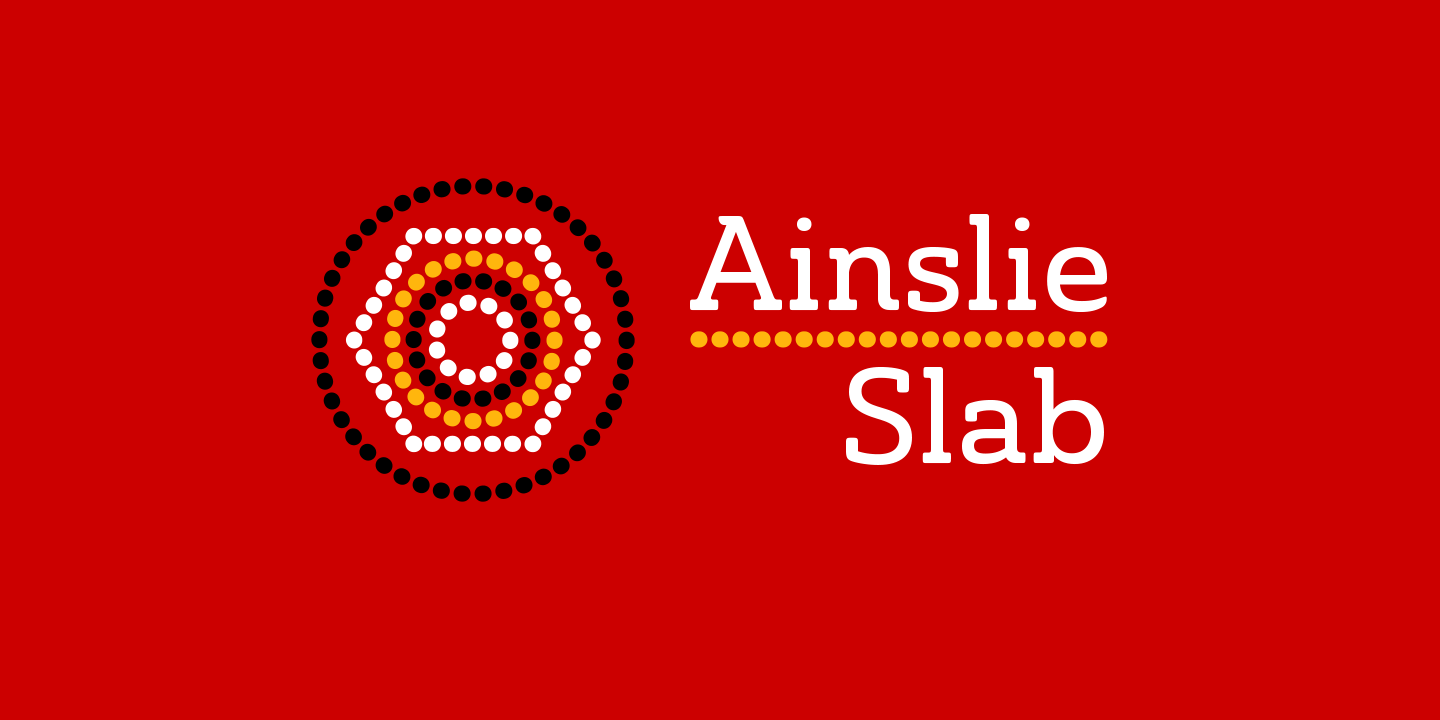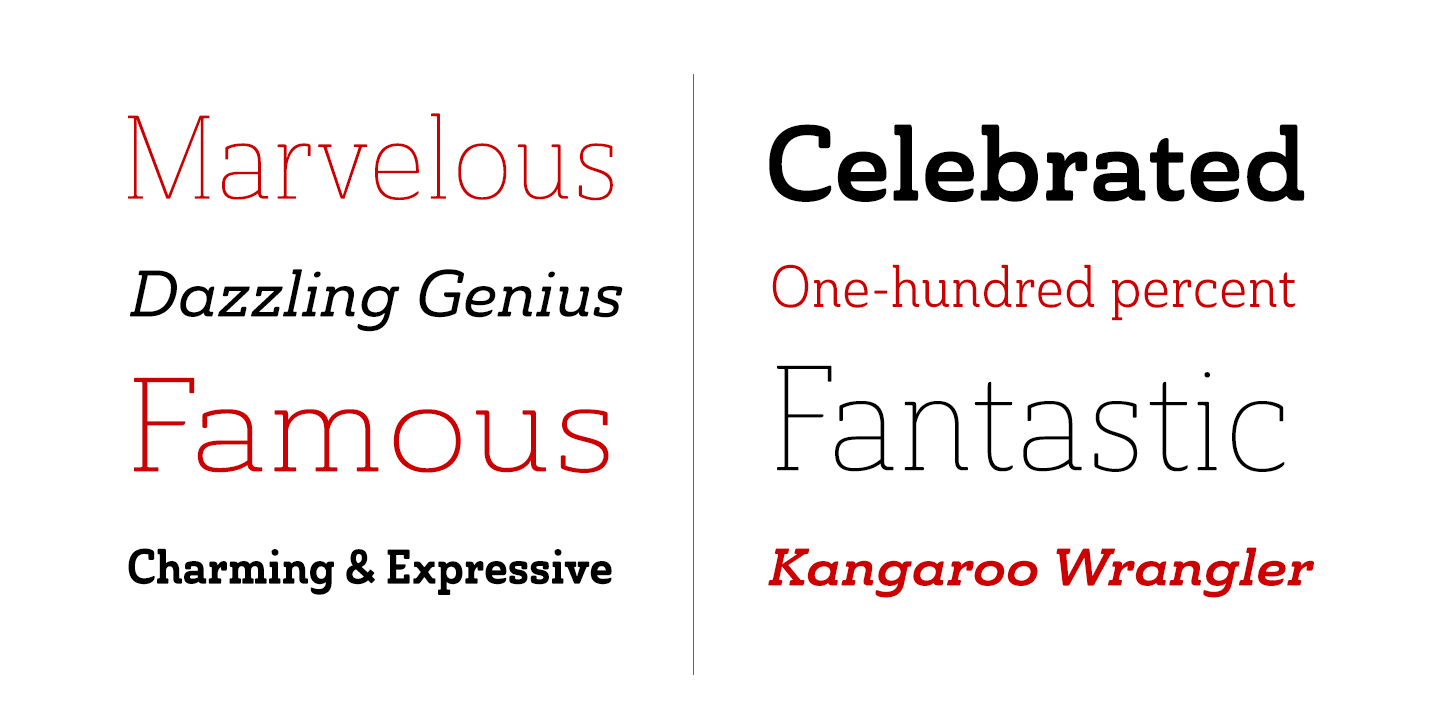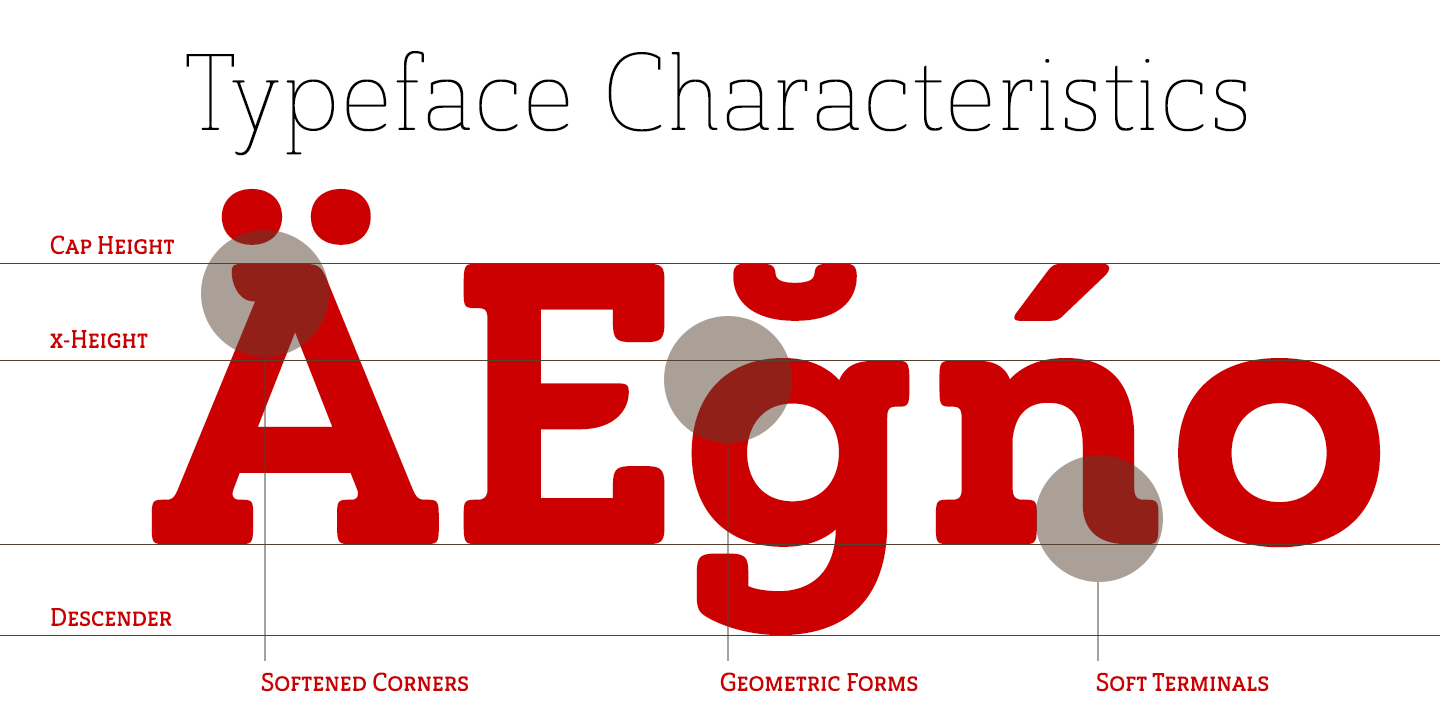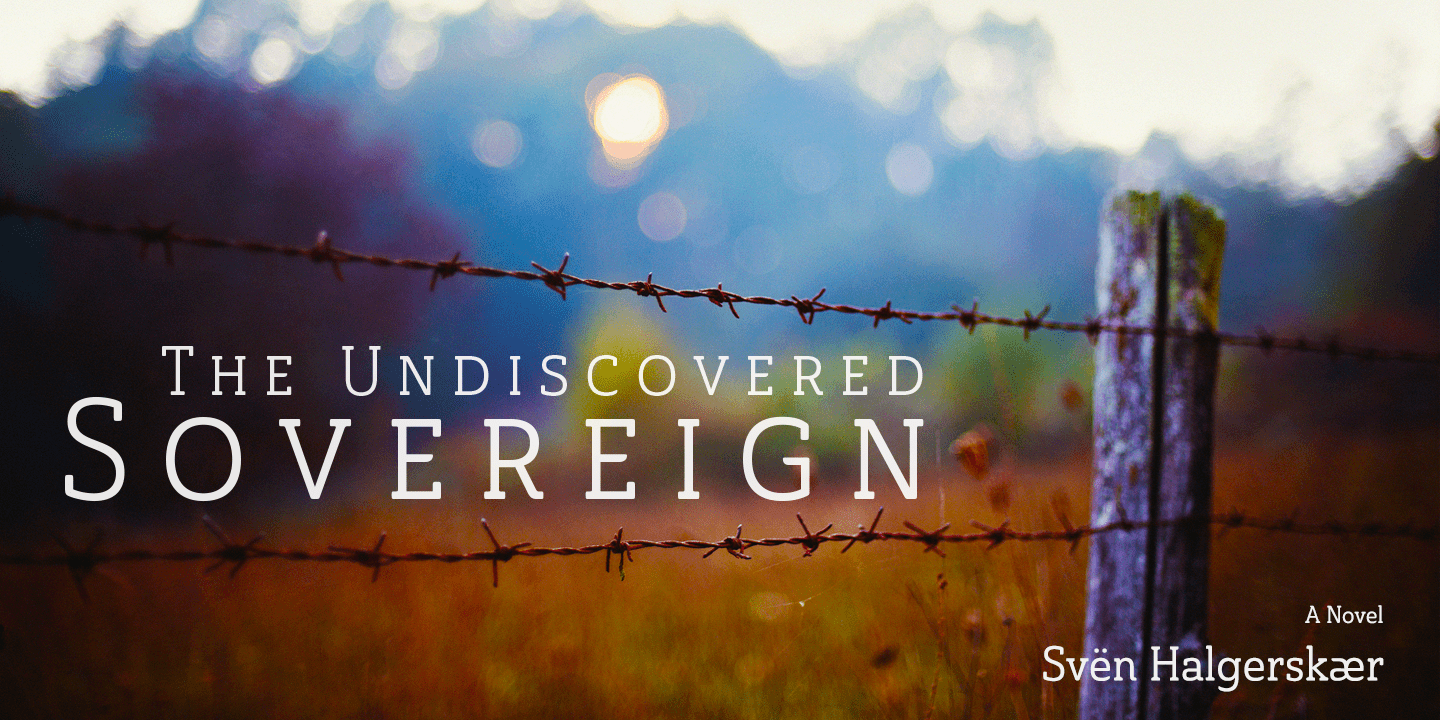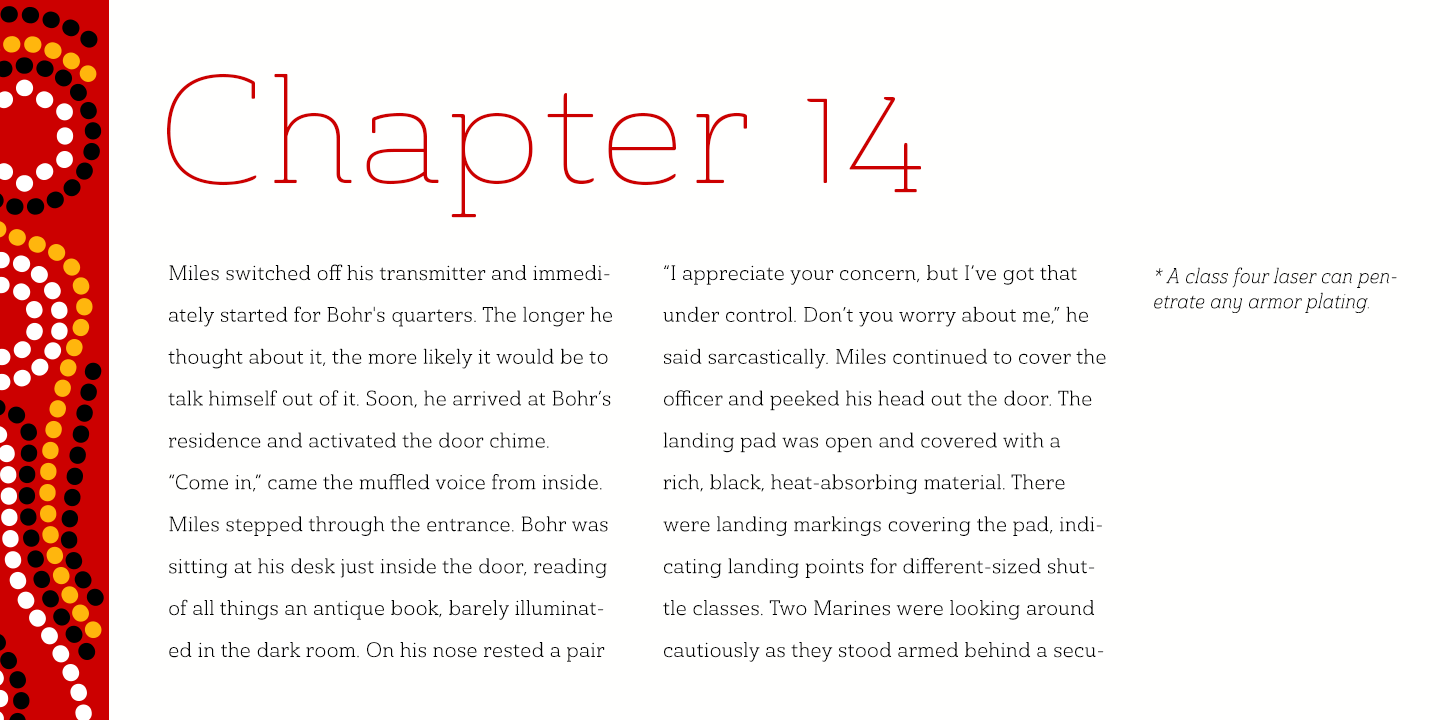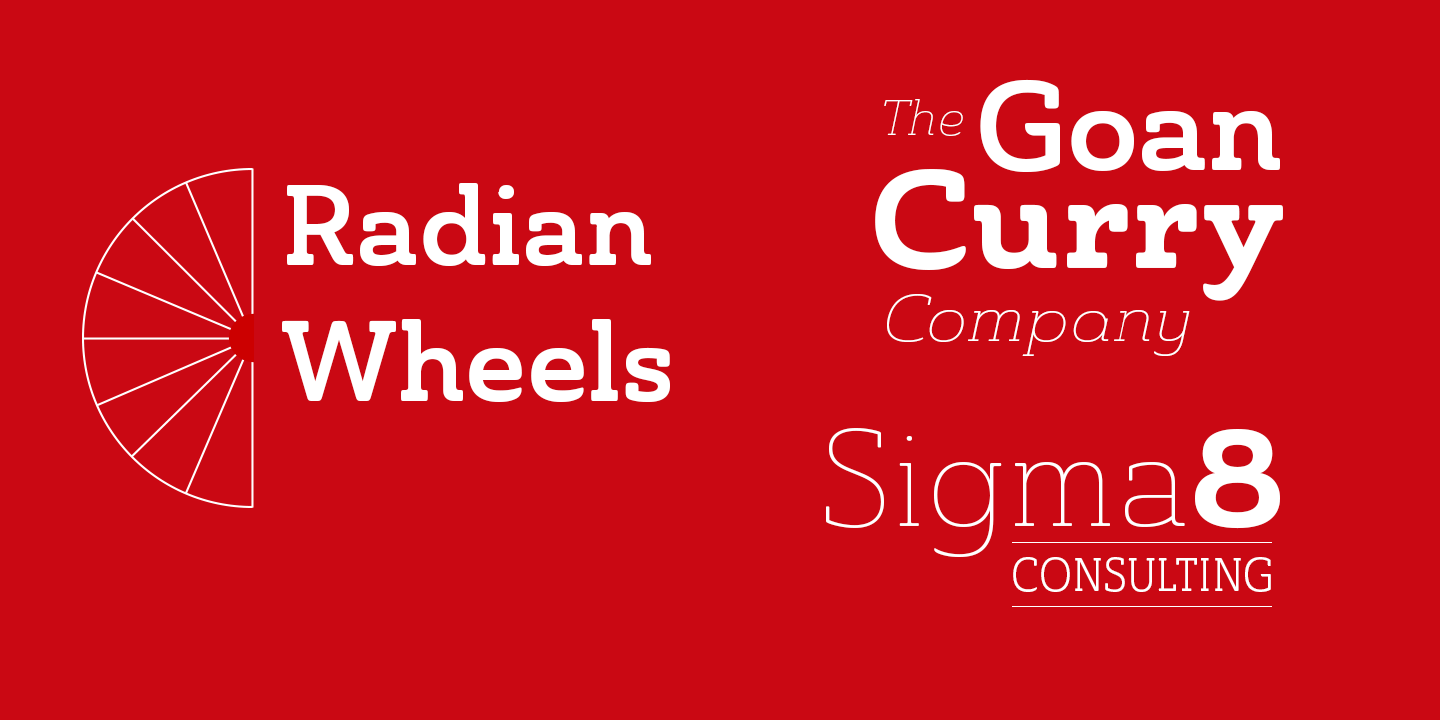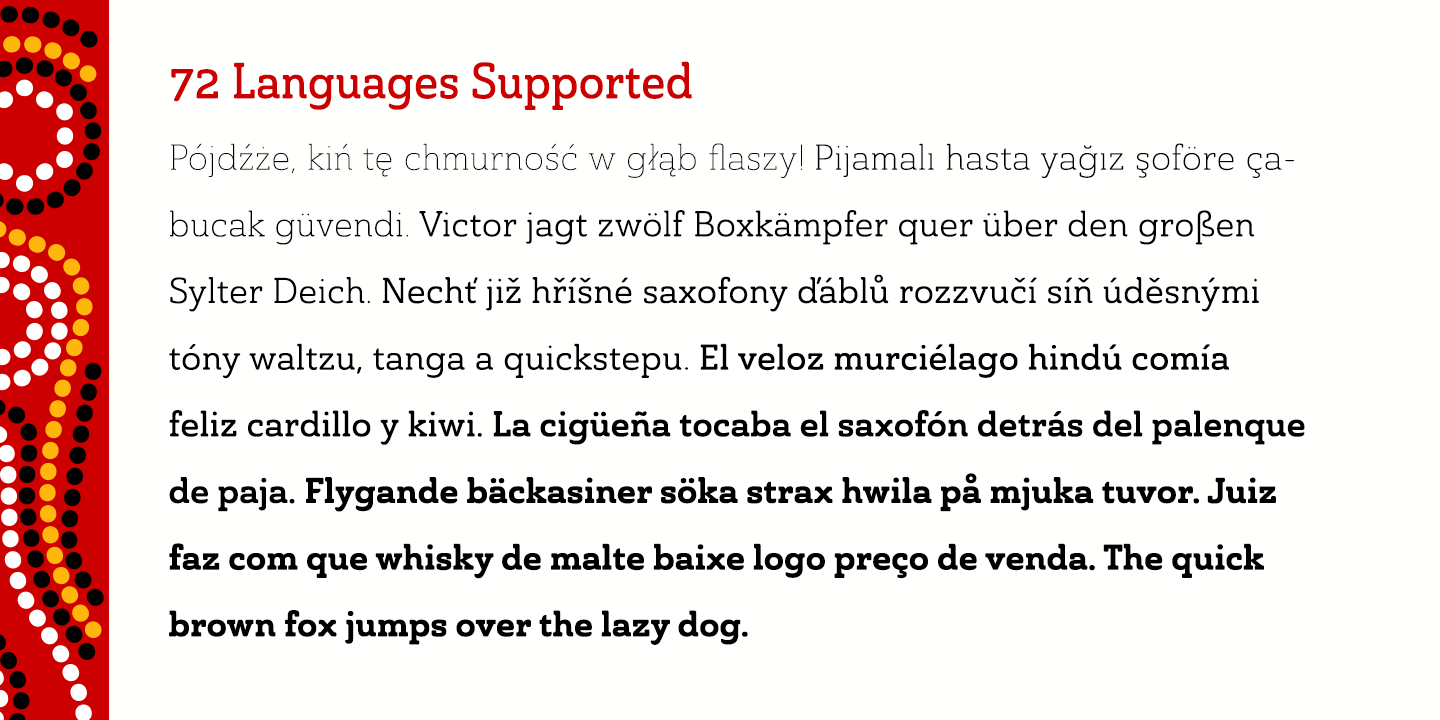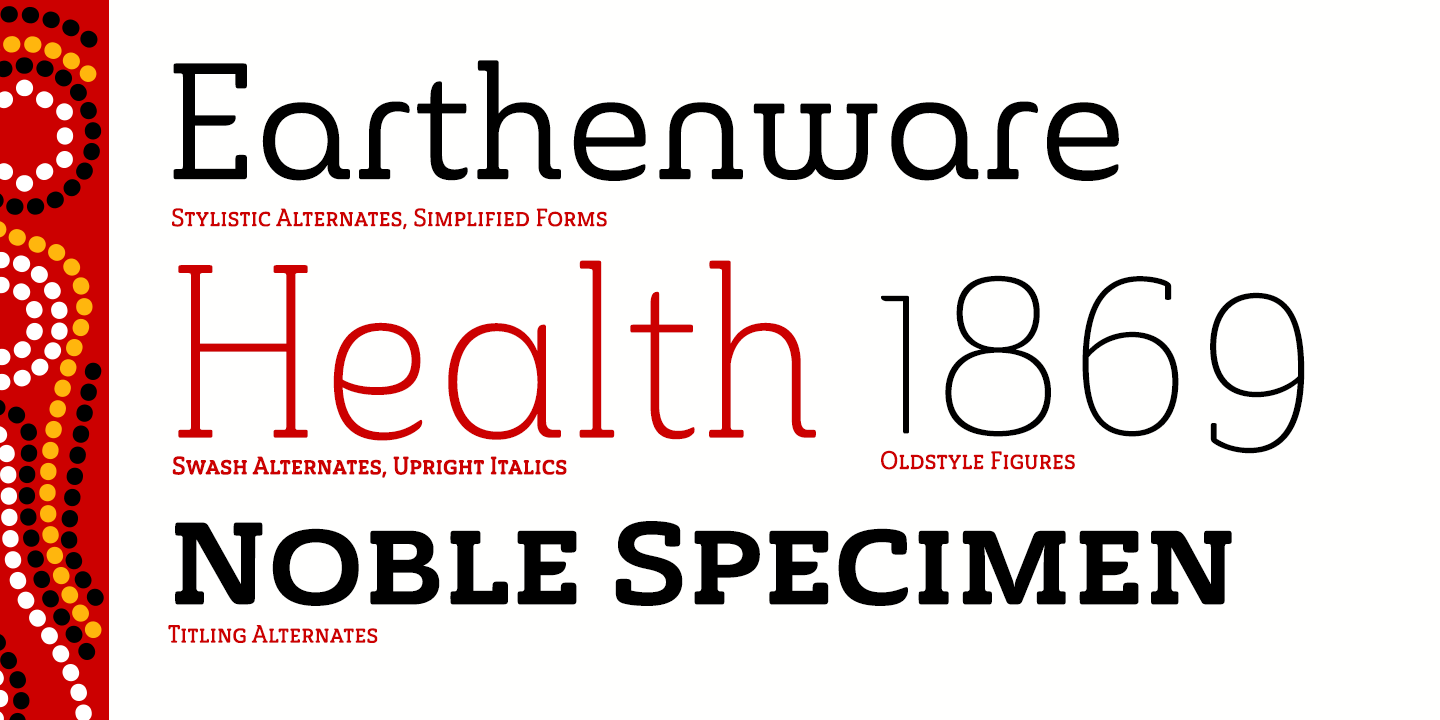
Ainslie Slab
Buy NowAinslie Slab is a serif family with a sturdy slab construction and a versatile, contemporary voice. Its mix of Condensed, Normal, and Extended widths gives the design a broad range of expression, from compact and assertive to more open and spacious.
With 42 styles spanning Thin through Bold, plus italics, this family gives designers plenty of room to build hierarchy while keeping a consistent look. That makes it a practical choice for branding systems, editorial layouts, posters, packaging, signage, and other display-driven projects that need a confident serif presence.
Published by Insigne, Ainslie Slab offers the kind of flexibility that works across both bold headline settings and more refined supporting typography. If you want a slab serif that can shift tone through width and weight without losing its character, this family brings a lot to the table.